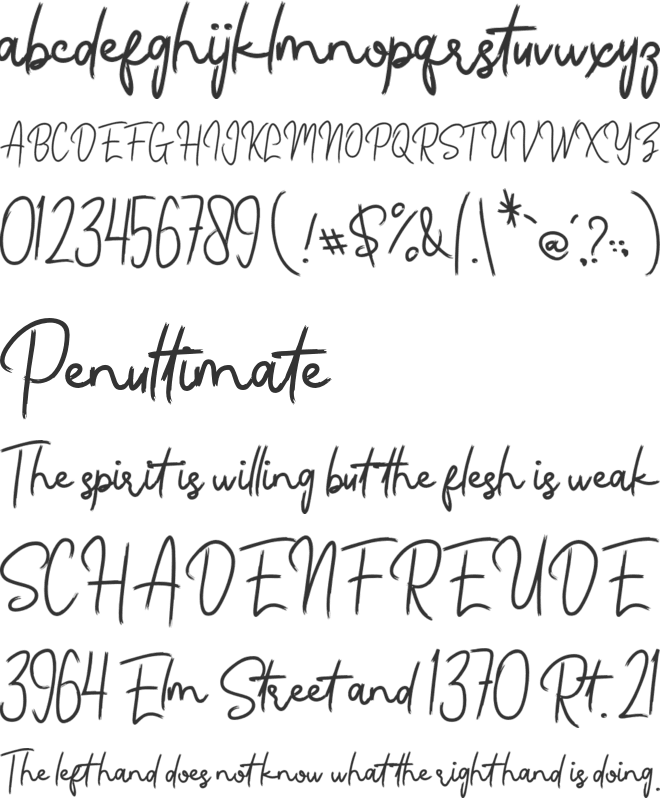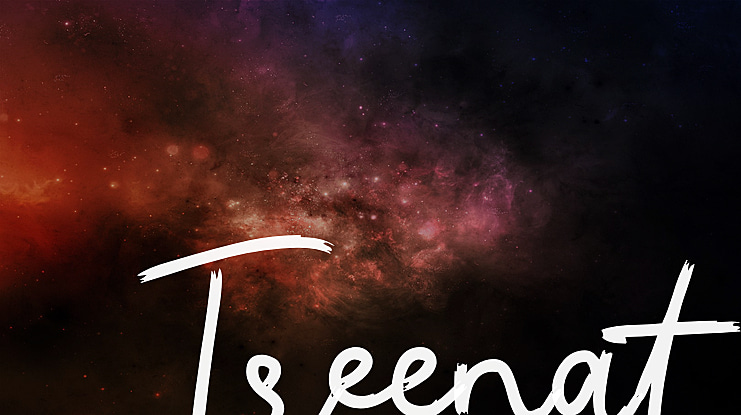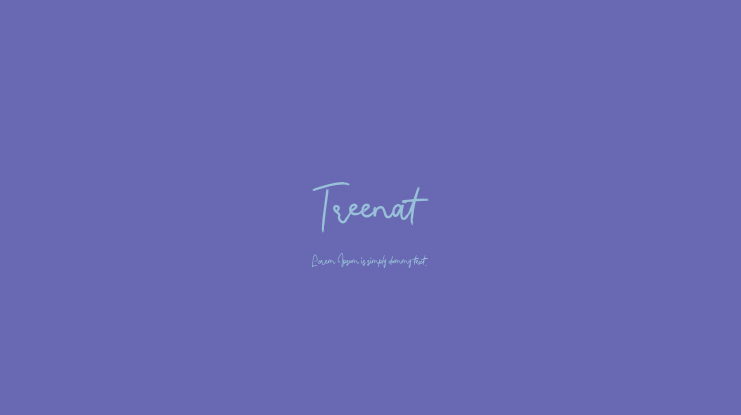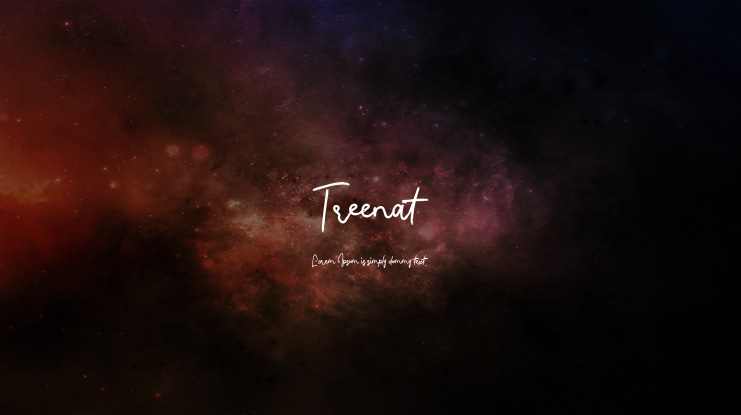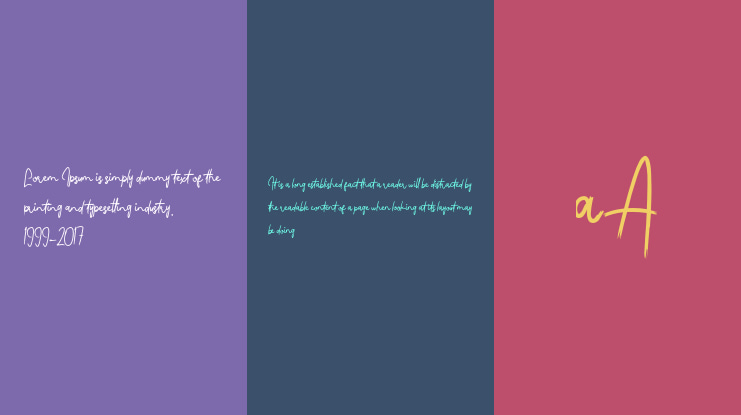
Treenat Font
Treenat A Rough Handwritten Font, A collection of letters and numbers suitable your projects also great for Logotype, Branding Design, Logo Design, Digital Lettering Arts, T-Shirt/Apparel, Poster, Magazine, Signs, Advertising Design, and any design needsClick our website :https://staircaselab.com/product/treenat/